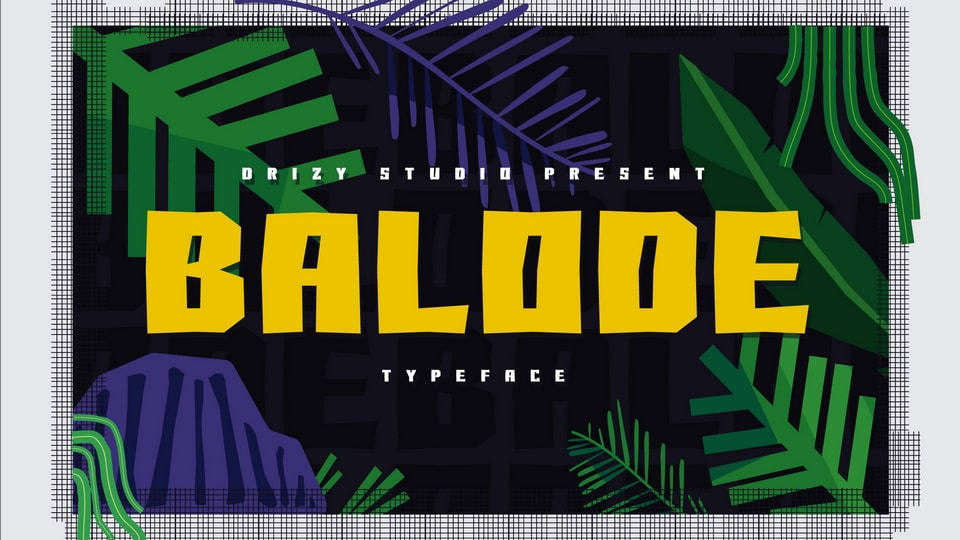
Download Balode font, a beautiful nature display typeface with a lot of ligatures. This unique and playful typeface is perfect for gorgeous logos and titles.
Designer: Drizy Studio